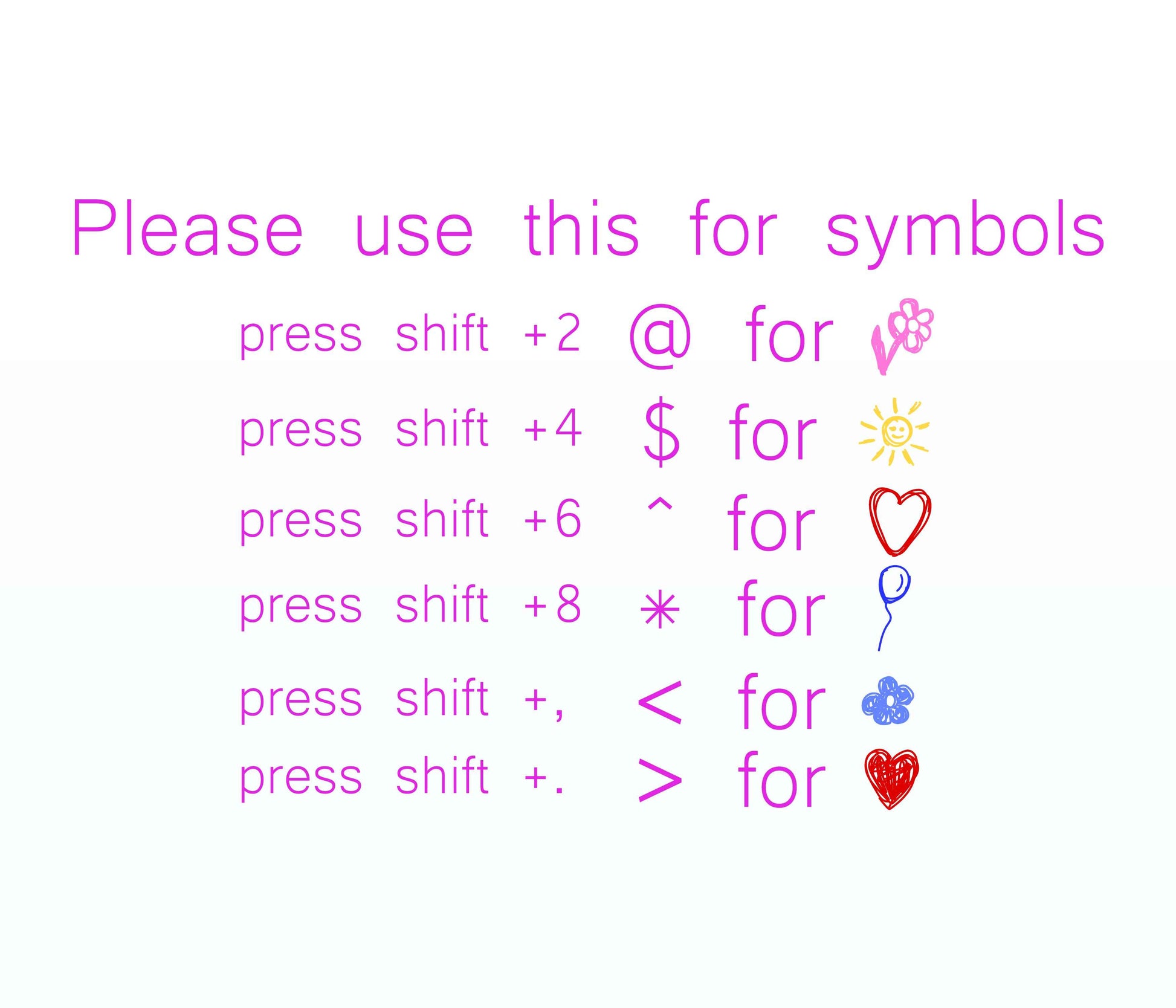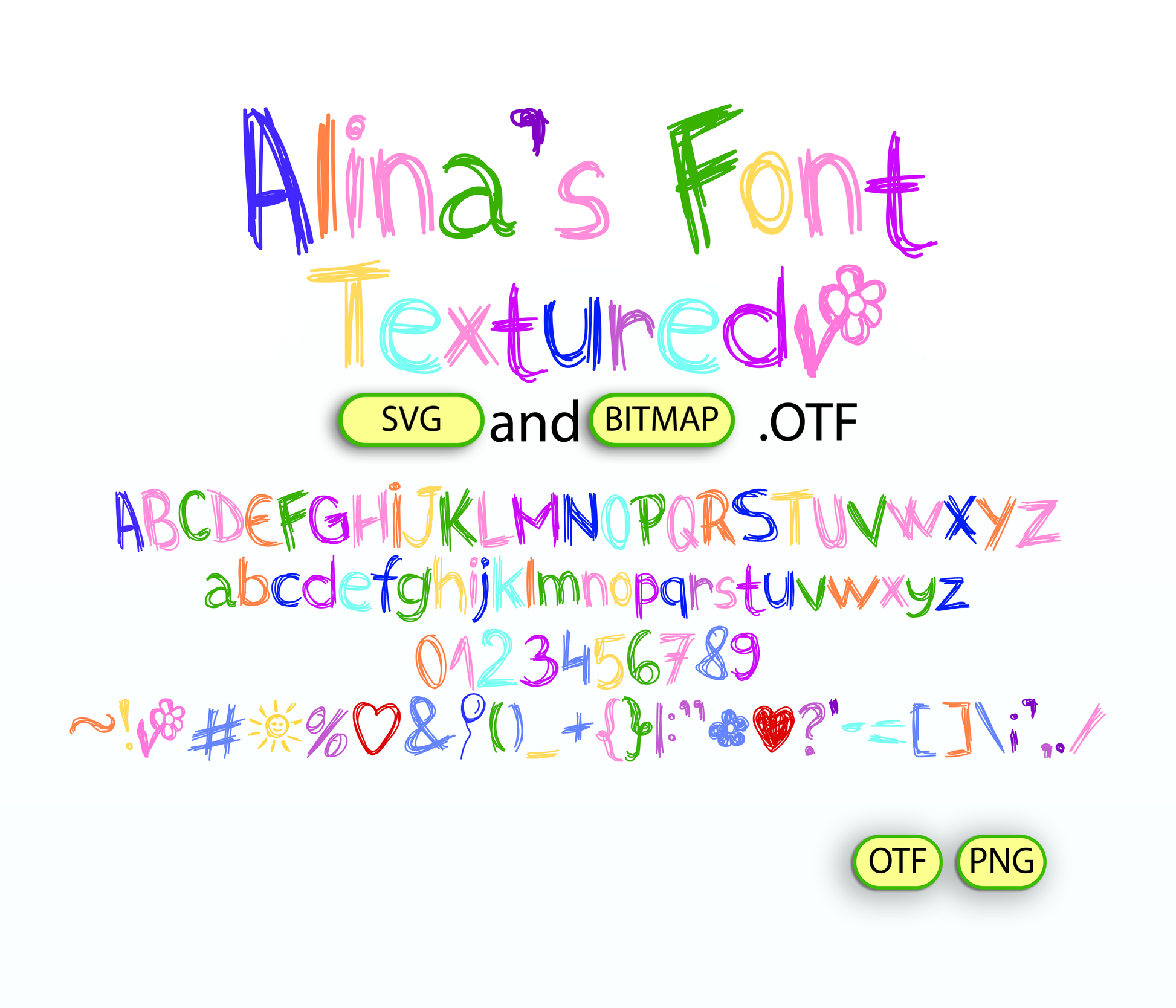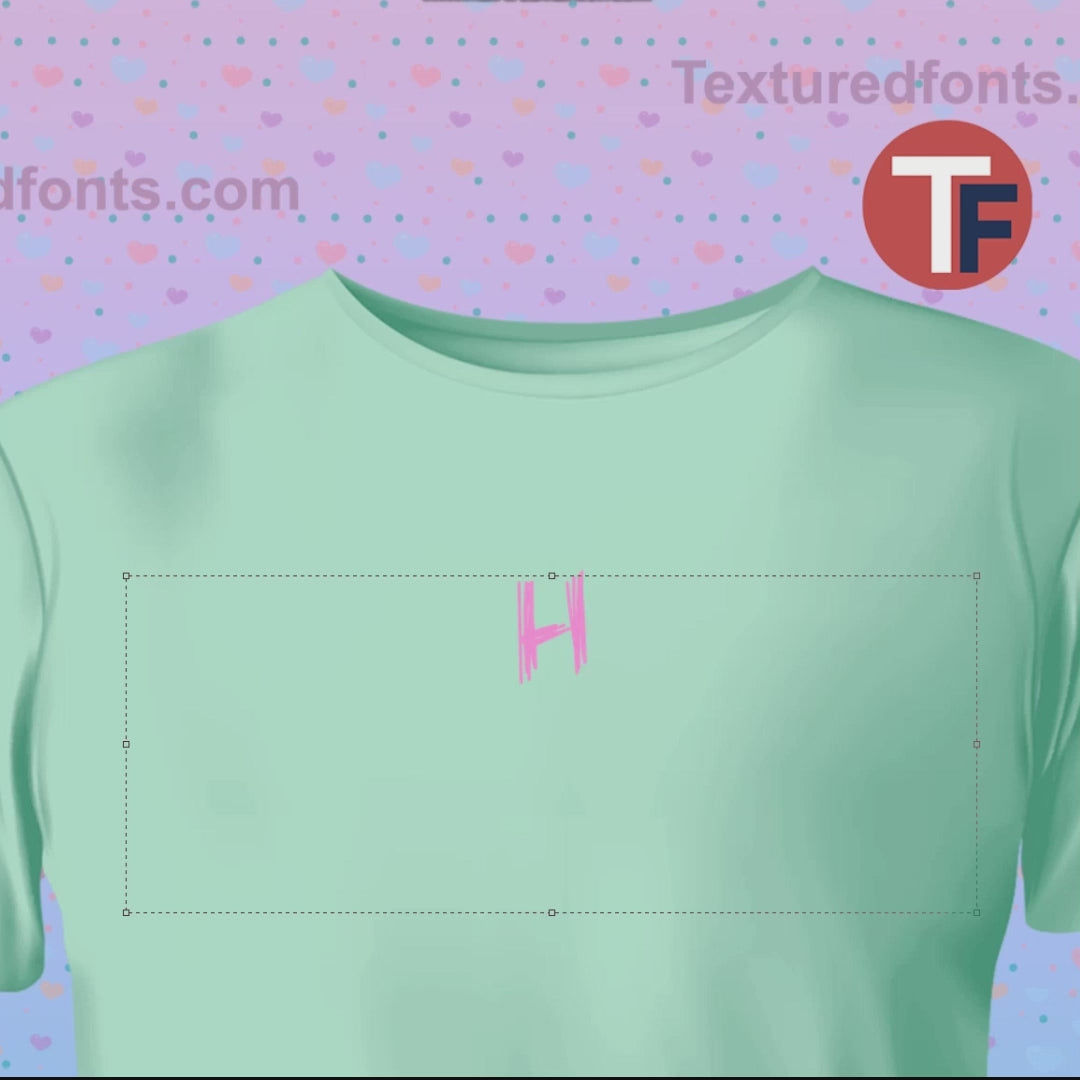
Mother's Day Doodle Font Textured
Mother's Day Doodle Font: Celebrating Mom with Whimsical Charm
Infuse your Mother's Day projects with a touch of playfulness and creativity using the Mother's Day Doodle font. This font captures the heartfelt joy and spontaneous affection that Mother's Day inspires. Designed to reflect the handmade cards and drawings reminiscent of childhood, the Mother's Day Doodle font brings a personal, lighthearted touch to your tributes, gifts, and greetings for moms everywhere.
The Mother's Day Doodle font features playful, hand-drawn elements that evoke the spirit of lovingly crafted homemade gifts. Each character is designed with irregular shapes and lines that mimic the quirky, imperfect doodles made with love. This approach makes the font ideal for conveying warmth and genuine affection. It includes a comprehensive set of characters—uppercase, lowercase, numbers, and special symbols—allowing for full creative expression in any project. The font blends whimsy with readability, making it perfect for both light-hearted and more poignant Mother's Day messages.
The Mother's Day Doodle font is perfect for a variety of creative applications, adding a personal touch to all your Mother's Day needs:
- Personalized Greeting Cards: Design unique cards that express heartfelt messages in a fun, doodle style.
- Social Media Content: Craft engaging posts or stories that celebrate mothers with a playful aesthetic.
- Gift Tags and Labels: Add a homemade touch to gifts with doodle-inspired tags and labels.
- Event Invitations: Send out invitations to Mother's Day brunches or picnics with a charming, informal font.
- Promotional Materials: Use the font in ads and flyers for Mother's Day sales or events, adding a personal touch.
- Decorative Posters: Create posters or wall art that moms can cherish, featuring sweet, doodle-inspired quotes.
- Email Marketing: Enhance your email newsletters with a font that feels personal and inviting.
- Website Banners: Update your website with Mother's Day themes that feel warm and welcoming.
- DIY Craft Projects: Use the font for crafting instructions or templates that celebrate Mother's Day.
- Photo Book Titles and Captions: Add playful titles and captions to family photo books gifted on Mother's Day.
The Mother's Day Doodle font is not just a typeface; it's a celebration of motherhood captured in doodle form. It's designed to bring smiles and warmth to any project, making every word a tribute to the love and appreciation felt for mothers. With its dual version flexibility and easy compatibility with platforms like Canva, this font invites you to celebrate Mother's Day in a uniquely personal and creative way. Let the Mother's Day Doodle font help you craft messages and gifts that moms will remember and treasure.